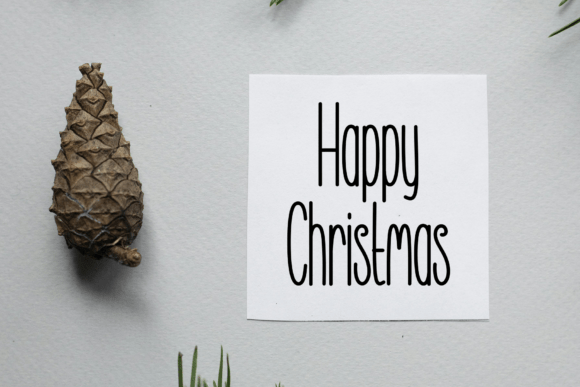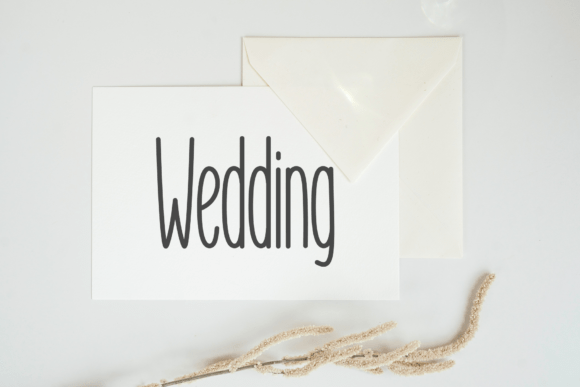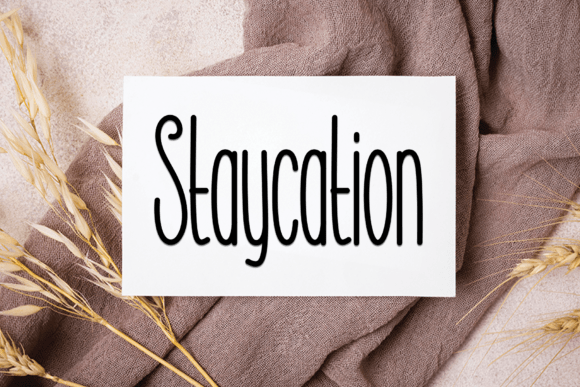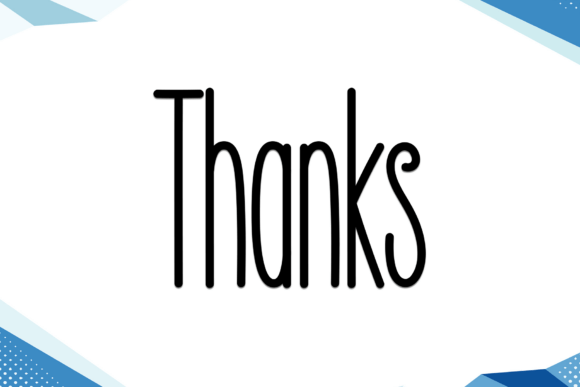
Introducing Background Font: The Perfect Blend of Relaxed and Luxurious
In the world of typography, fonts play a crucial role in conveying the tone and personality of a brand or design. For designers and crafters looking for a unique and versatile font, Background Font is an excellent choice. This handwritten font, designed to resemble marker-drawn text, offers a relaxed and sporty feel that’s perfect for a wide range of applications.
The Characteristics of Background Font
Background Font boasts a distinctive, hand-drawn aesthetic that’s reminiscent of marker-written text. Its relaxed and casual vibe makes it an ideal choice for designs that require a friendly and approachable tone. The font’s sporty feel also lends itself well to branding and marketing materials that require a dynamic and energetic personality.
Perfect for Branding and Logos
When it comes to creating a strong brand identity, typography is essential. Background Font’s unique blend of elegance and casualness makes it an excellent choice for logos, business cards, and other branding materials. Its luxurious feel ensures that your brand stands out from the crowd, while its relaxed tone keeps things approachable and friendly.
Ideal for Wedding Supplies and Greeting Cards
For crafters and designers specializing in wedding supplies and greeting cards, Background Font is a treasure trove of creative possibilities. The font’s elegant and sophisticated feel makes it perfect for wedding invitations, save-the-date cards, and other romantic correspondence. Its casual tone also ensures that your designs don’t feel too formal or stuffy.
Fashion and Lookbooks
In the fashion world, typography plays a crucial role in conveying style and sophistication. Background Font’s luxurious feel and sporty vibe make it an excellent choice for fashion brands, lookbooks, and marketing promotions. The font’s unique aesthetic adds a touch of personality to your designs, setting them apart from more traditional typography.
Marketing Promotions and Advertising
When it comes to creating effective marketing materials, typography can make all the difference. Background Font’s dynamic and energetic feel makes it perfect for promotional materials, such as flyers, brochures, and social media graphics. Its relaxed tone also ensures that your message comes across as friendly and approachable.
Why Choose Background Font?
So why should designers and crafters choose Background Font for their projects? Here are just a few compelling reasons:
- Unique aesthetic: Background Font’s marker-drawn text aesthetic sets it apart from more traditional fonts.
- Versatility: The font’s relaxed and sporty feel makes it suitable for a wide range of applications, from branding and logos to wedding supplies and marketing promotions.
- Luxurious feel: Background Font’s elegant and sophisticated tone ensures that your designs feel high-end and luxurious.
- Casual tone: The font’s relaxed vibe keeps things approachable and friendly, making it perfect for designs that require a more casual personality.
In conclusion, Background Font is an exceptional choice for designers and crafters looking for a unique and versatile font. Its relaxed and sporty feel, combined with its luxurious aesthetic, make it perfect for a wide range of applications. Whether you’re working on branding and logos, wedding supplies, greeting cards, fashion, or marketing promotions, Background Font is sure to elevate your designs to the next level.